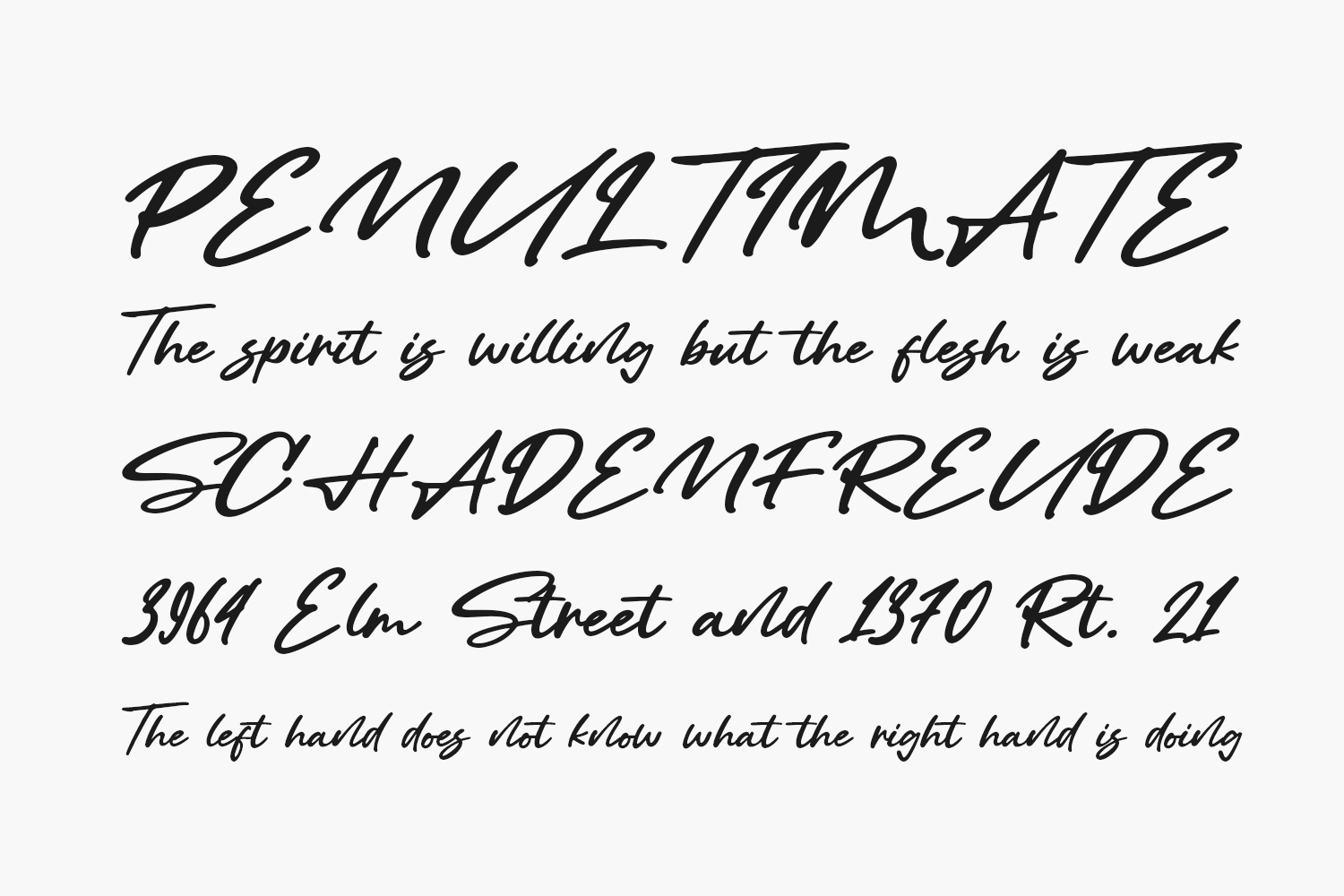
Sansilk Free Font is a contemporary and elegant script font that is ideal for a wide range of creative projects, including posters, logos, magazines, book covers, banners, and more. Enhance your designs with this remarkable font and witness the transformation it brings. Its versatility allows it to seamlessly blend with a vast array of projects, so incorporate it into your creative endeavors and witness how it elevates them to new heights of excellence! Don’t miss out on the opportunity to acquire this amazing font. Sansilk Free Font is free for personal or commercial use.